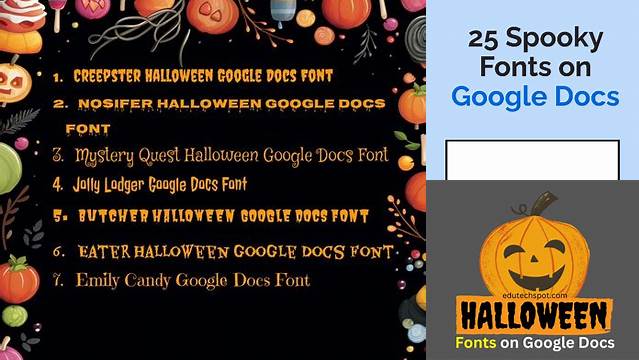
Spooky Google Docs: Halloween Fonts To Die For!
Hey guys! Getting ready for Halloween and want to add some spooky flair to your Google Docs? You've come to the right place! Let's dive into some awesome Halloween fonts that will make your documents scream (with delight, of course!). Choosing the right font can really set the mood, whether you're crafting a Halloween party invitation, writing a spooky short story, or just want to add some seasonal fun to your work. In this article, we'll explore a variety of fonts perfect for Halloween, show you how to use them in Google Docs, and give you some tips on making your documents look extra spooky. So, grab your pumpkin spice latte, and let’s get started!
Best Halloween Fonts for Titles
When it comes to titles, you want fonts that are bold, attention-grabbing, and instantly recognizable as Halloween-themed. Some excellent choices include Nosferatu, with its jagged edges and creepy feel, or Creepster, which has a drippy, gooey look perfect for a horror theme. Another great option is Blackwood Castle, which evokes a sense of old, gothic mystery. These fonts are ideal for headlines, chapter titles, or any text you want to stand out. Remember to consider the overall tone of your document when choosing a title font. If you're going for a fun, lighthearted Halloween vibe, a font like Pumpkin Spice might be more appropriate. But if you're aiming for something genuinely scary, stick with the darker, more dramatic options. Experiment with different sizes and colors to make your titles even more eye-catching. A bold red or a spooky green can really enhance the Halloween effect. And don't be afraid to add some extra flair with borders or shadows to make your titles pop.
Spooky Fonts for Body Text
Choosing a font for the body text is just as important as selecting the right title font. You want something that is both readable and thematic. While you might be tempted to use a super spooky font for everything, remember that readability is key. Some good options for body text include Spectral, which has a slightly eerie but still legible style, or Frankenstein, which offers a subtle nod to classic horror. Another excellent choice is Vampire Hunter, which is clean and easy to read while still maintaining a dark, gothic feel. When selecting a body text font, consider the length of your document. If you're writing a long story, you'll want to choose a font that is easy on the eyes, even after reading for an extended period. Avoid fonts that are too decorative or have overly complex details, as these can become tiring to read. Stick with something simple, clean, and slightly spooky to create the perfect balance between readability and Halloween theme. And don't forget to adjust the font size and line spacing to ensure that your text is comfortable to read.
Combining Different Halloween Fonts
One of the best ways to create a visually appealing Halloween document is to combine different fonts. This can add depth and interest to your text, making it more engaging for the reader. A good rule of thumb is to choose one font for your titles and another for your body text. This creates a clear visual hierarchy and helps to guide the reader through your document. When combining fonts, try to choose ones that complement each other. For example, you might pair a bold, dramatic title font like Nosferatu with a cleaner, more readable body text font like Spectral. Avoid using too many different fonts in one document, as this can look cluttered and confusing. Stick to two or three fonts at most to maintain a cohesive and professional look. Experiment with different combinations to see what works best for your project. You can also use different font styles, such as bold, italic, or underlined, to add emphasis to certain words or phrases. Just be sure to use these styles sparingly, as too much emphasis can be distracting.
Halloween Fonts for Invitations
Creating Halloween invitations? The right font can set the perfect tone! For a classic spooky feel, go with Ghoulish. If you want something a bit more fun and playful, Witchcraft is a great choice. And for a touch of elegance with a creepy twist, try Haunted Script. When designing your invitations, consider the overall theme of your party. Is it a kid-friendly costume party or a more sophisticated adult gathering? Choose fonts that reflect the mood you're trying to create. Use bold colors and spooky graphics to enhance the Halloween effect. And don't forget to include all the important details, such as the date, time, location, and RSVP information. Make sure your text is easy to read, even with the spooky font. Adjust the font size and color to ensure that it stands out against the background. And don't be afraid to get creative with your layout. A well-designed invitation can really get your guests excited about your Halloween party.
Using Halloween Fonts for Story Writing
If you're writing a Halloween story, the right font can help to immerse your readers in the spooky atmosphere. For a classic horror story, Dracula or Nightmare can be very effective. If you're writing a more lighthearted tale, Ghostly or Spooky Tales might be better choices. When selecting fonts for your story, consider the genre and tone. Is it a terrifying thriller or a fun, family-friendly adventure? Choose fonts that match the overall mood of your story. Use different fonts for dialogue, narration, and chapter titles to create a visual hierarchy and make your story more engaging. Remember to prioritize readability, especially for longer stories. Choose a font that is easy on the eyes, even after reading for an extended period. And don't be afraid to experiment with different font styles, such as bold, italic, or underlined, to add emphasis to certain words or phrases. Just be sure to use these styles sparingly, as too much emphasis can be distracting. A well-chosen font can really bring your Halloween story to life.
Making Halloween Flyers with Custom Fonts
Designing Halloween flyers? Custom fonts can make your flyer stand out! Try Bloodlust for a gory, horror-themed flyer or Creaky Bones for a spooky, skeletal vibe. For a more playful flyer, Candy Corn might be perfect. When creating your flyer, consider your target audience. Are you promoting a haunted house, a costume party, or a trick-or-treat event? Choose fonts that appeal to your target demographic. Use bold colors and eye-catching graphics to grab people's attention. And don't forget to include all the important details, such as the date, time, location, and any special instructions. Make sure your text is easy to read, even with the custom font. Adjust the font size and color to ensure that it stands out against the background. And don't be afraid to get creative with your layout. A well-designed flyer can really attract attention and generate excitement for your Halloween event.
Creating Halloween Cards with Themed Fonts
Sending Halloween cards? Themed fonts add a special touch. Cemetery is great for a gothic feel, while Pumpkinhead is perfect for something fun. Eerie offers a classic spooky vibe. When designing your cards, think about the message you want to convey. Are you sending a funny greeting, a spooky message, or a heartfelt note? Choose fonts that reflect the tone of your card. Use festive colors and Halloween-themed images to enhance the overall design. And don't forget to personalize your message with a handwritten note. Even with a custom font, a personal touch can make your card even more special. Make sure your text is easy to read, even with the themed font. Adjust the font size and color to ensure that it stands out against the background. And don't be afraid to get creative with your layout. A well-designed card can really brighten someone's day during the Halloween season.
Designing Halloween Posters with Unique Fonts
For Halloween posters, unique fonts are a must! Monster Mash is great for a playful event, Raven's Quill offers a mysterious touch, and Shadows creates an eerie atmosphere. Think about the poster's purpose. Are you promoting a movie night, a haunted trail, or a Halloween dance? Choose fonts that match the event's theme. Use vibrant colors and striking images to capture attention. Ensure your key information—date, time, location—is prominently displayed and easy to read. Adjust font sizes and colors so they pop against the background. Get creative with the layout. A well-designed poster can generate buzz and draw crowds to your Halloween event.
Halloween Fonts and Accessibility
Ensure accessibility for all users. Use fonts with good contrast. Avoid overly decorative fonts. Provide alternative text for images with fonts. Accessible designs are inclusive and reach a wider audience.
Advanced Techniques for Using Halloween Fonts
Explore advanced techniques. Use kerning and tracking to adjust letter spacing. Create custom ligatures for unique looks. Experiment with font blending modes. Advanced techniques elevate your font usage to a professional level.